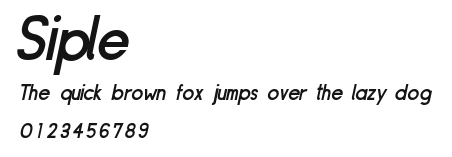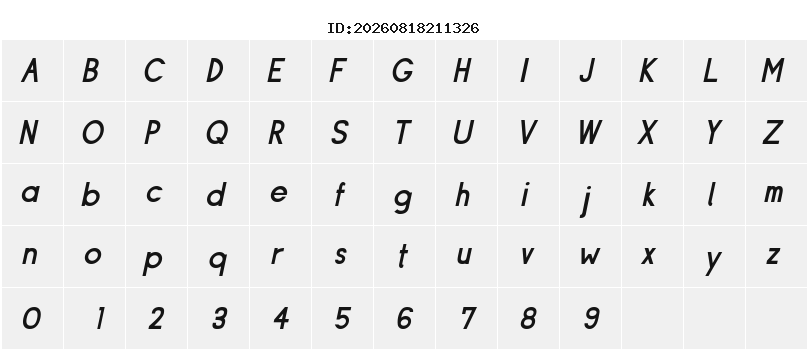
Siple Preview
• Font Name: Siple
• Font Style: DemiBoldOblique
• Font ID: Macromedia Fontographer 4.1.5 Siple DemiBoldOblique
• Full Font Name: Siple DemiBoldOblique
• Version: Macromedia Fontographer 4.1.5 24/7/02
• PostScript Name: SipleDemiBoldOblique
• Character Count: 253
• Copyright: 1.12 © 2001 by Tomoyuki Watanabe Siple DemiBoldOblique
About Siple.ttf
Siple.ttf is a modern, elegant sans-serif font designed for ultimate readability and visual harmony. Perfect for branding, headlines, web design, and print materials.